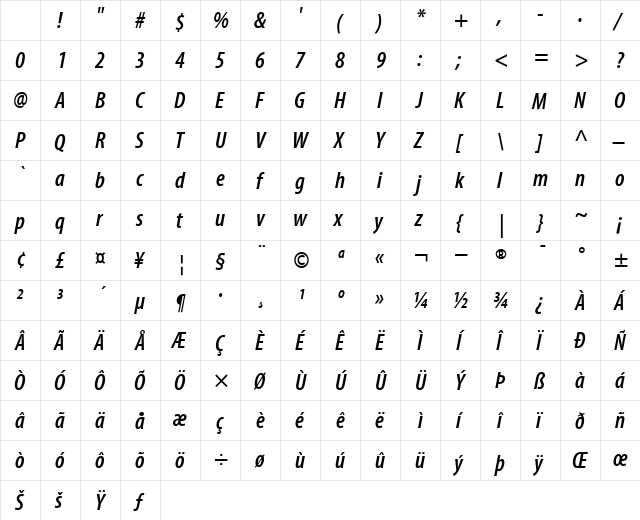
MyriadCn-SemiBold Semi BoldItalic
Design Context for MyriadCn-SemiBold
MyriadCn-SemiBold is a composed and adaptable typeface that performs quietly and consistently across a wide range of design contexts. The slanted form adds forward momentum and visual energy. Its bold stroke weight gives it real presence on the page.